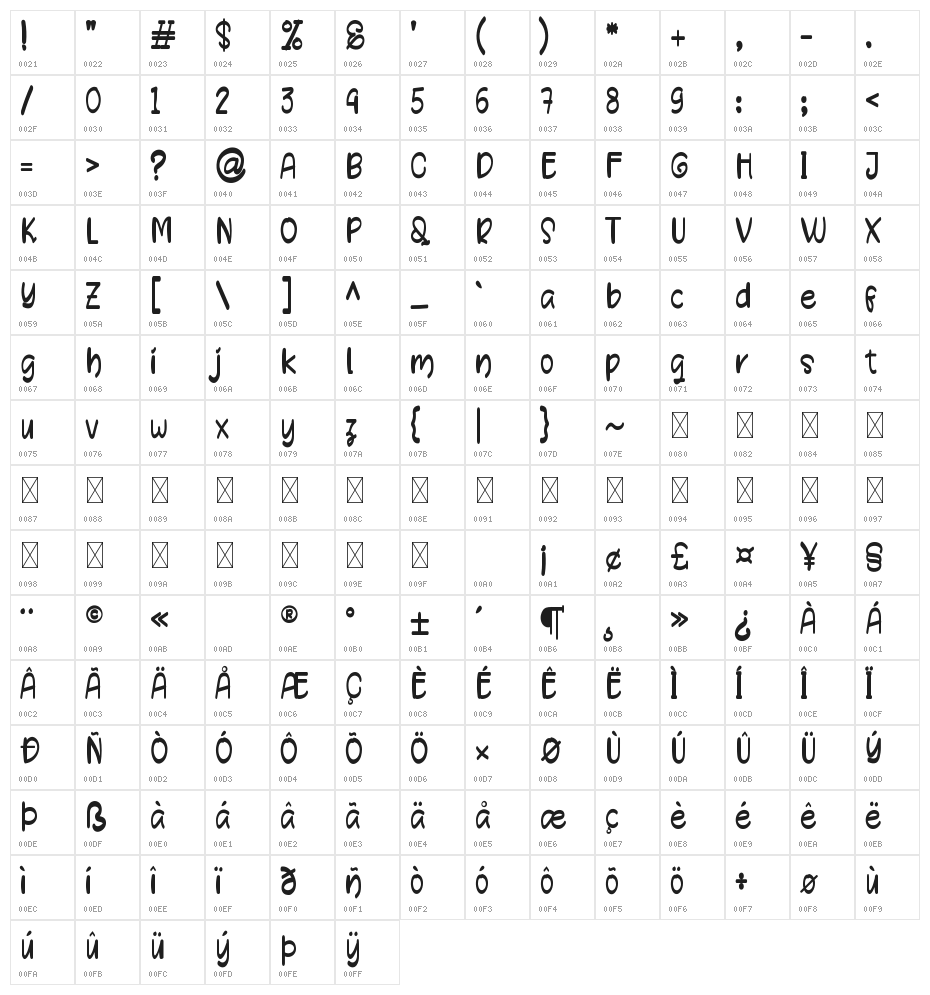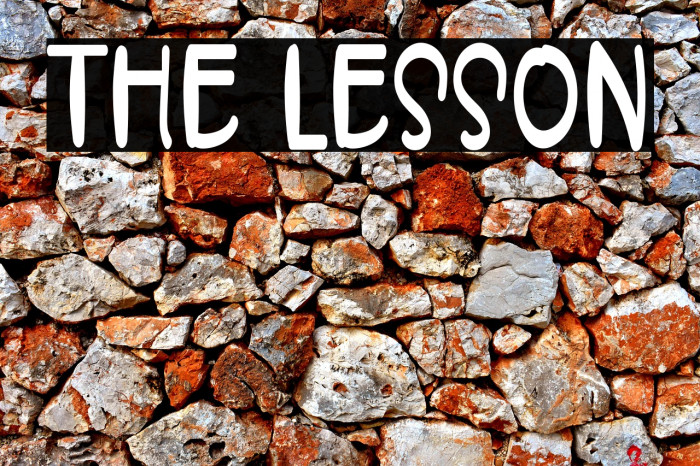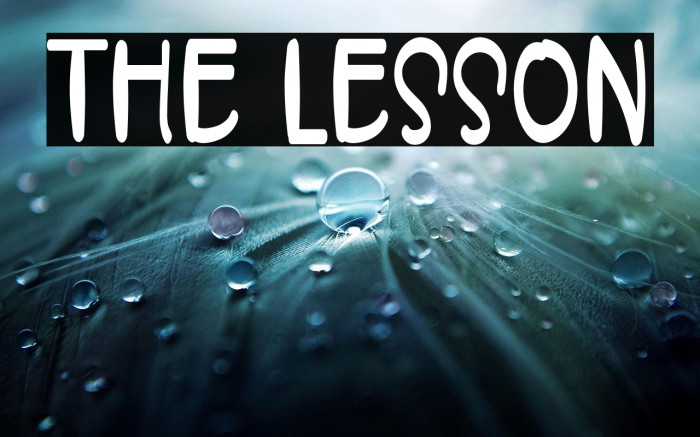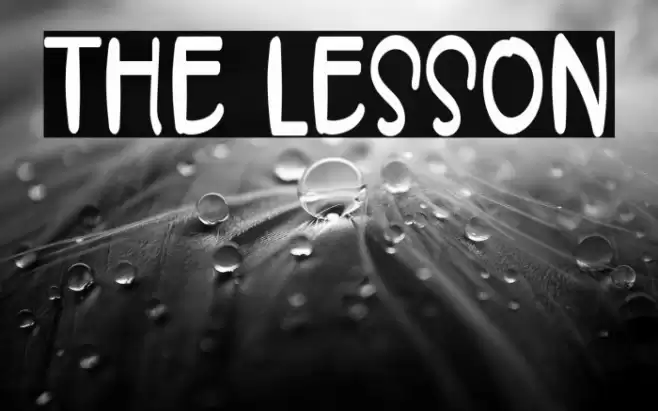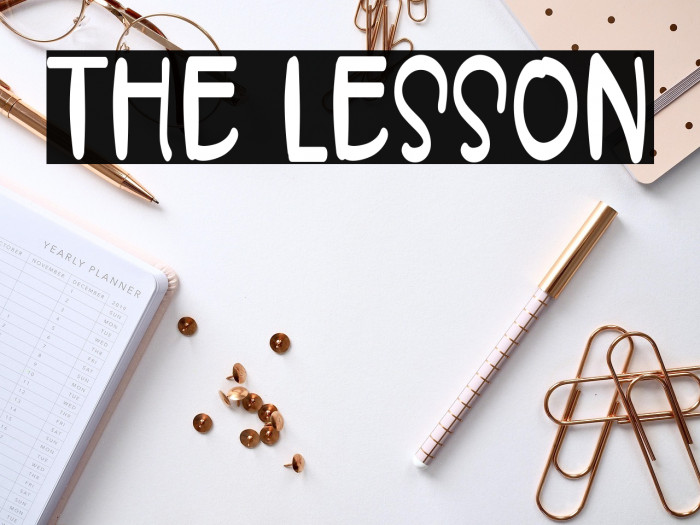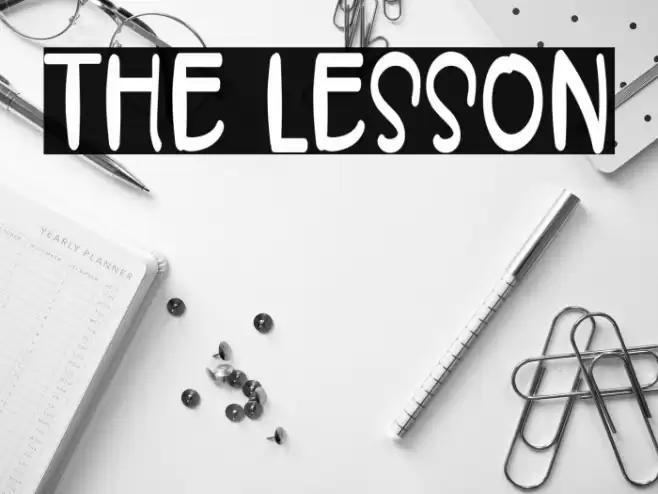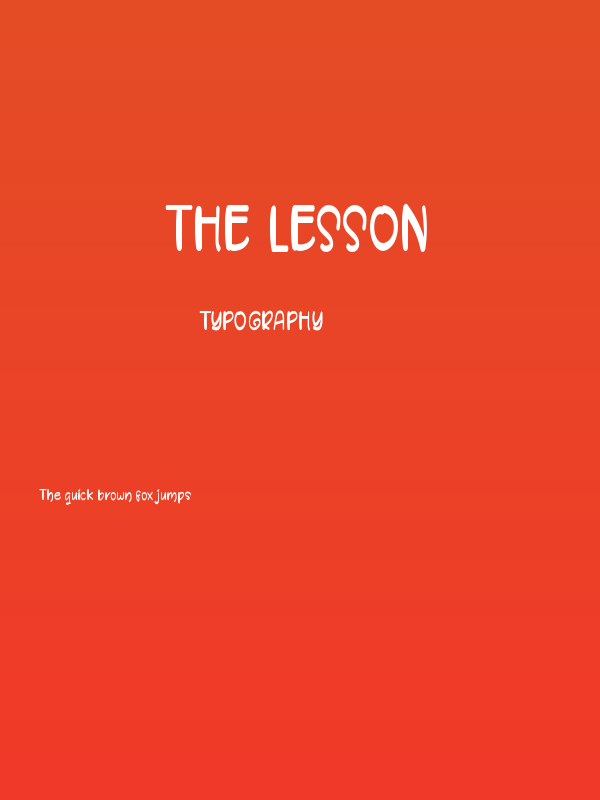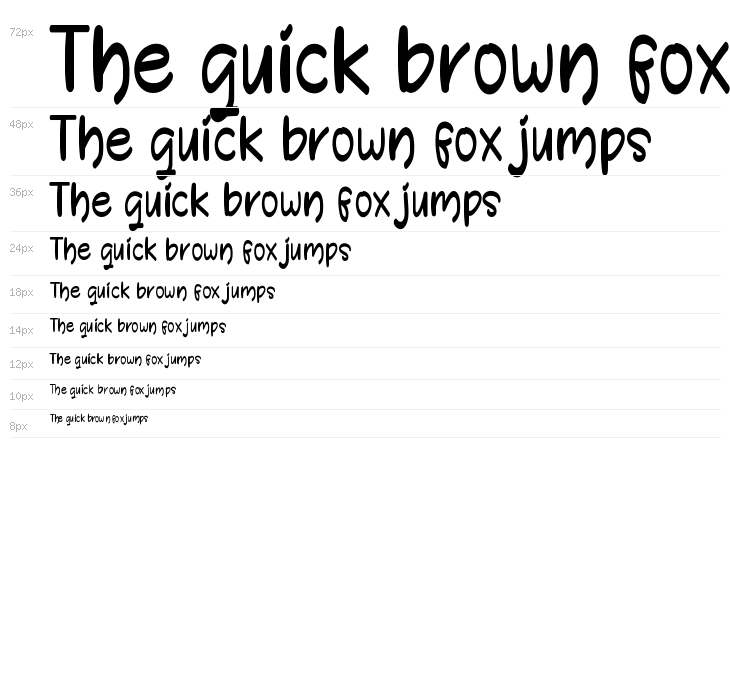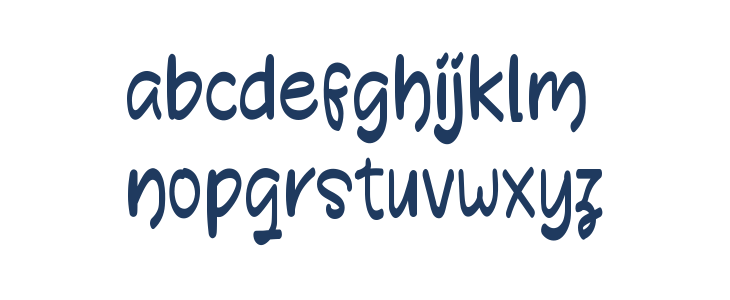
THE LESSON Font
THE LESSON Description
This playful and bold font features a handwritten style with a whimsical touch. The characters are rounded and slightly irregular, giving them a friendly and approachable appearance. The uppercase letters are tall and narrow, while the lowercase letters maintain a consistent flow with subtle variations in height. Numbers and special characters are designed to match the playful aesthetic, making them ideal for creative projects. The font's unique style is perfect for adding a personal touch to any design, making it stand out with its distinctive charm.
| Proposed Projects | Ideal for children's books, greeting cards, playful branding, and creative posters. |